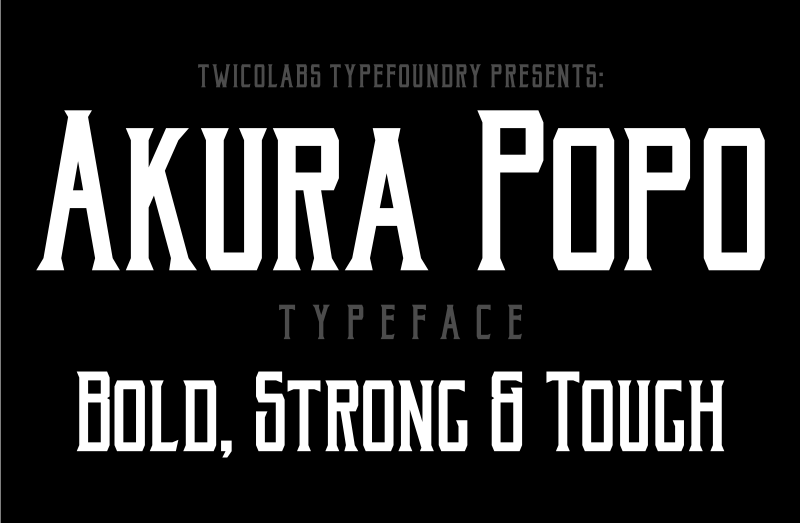
Font name: | Akura Popo |
Author: | Twicolabs Fontdation |
Note by Twicolabs Fontdation | |
Akura Popo is a vintage and classic condensed serif font / typeface with bold, strong and tough looking style. Suits best for logo, headline, letterhead, etc. Available for free (personal and commercial use) in .ttf and .otf. |